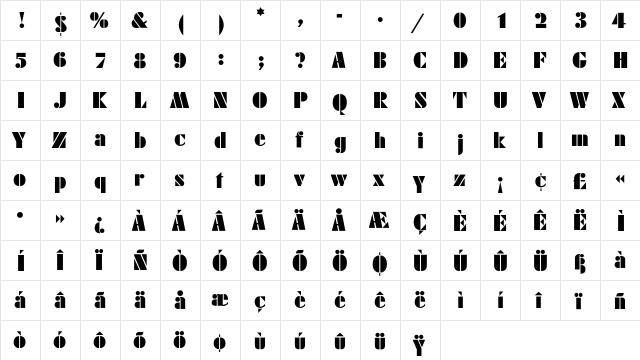
FuturaBlackEF Regular
Design Context for FuturaBlackEF Typeface
FuturaBlackEF channels digital-age aesthetics through its sharp, structured letterforms — ideal for brands that want to signal innovation.
Pro Tip: Try FuturaBlackEF with generous letter-spacing in UI labels and navigation — the geometric forms benefit from room to breathe.